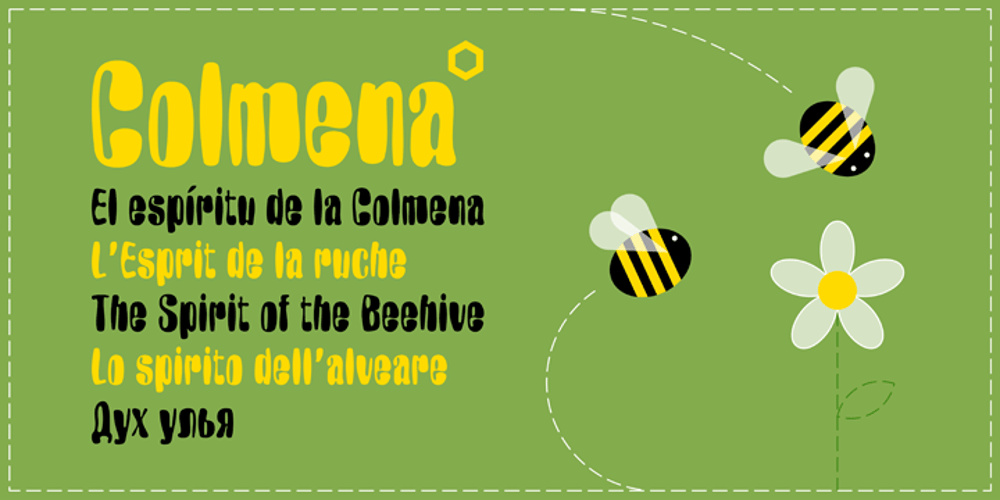
Colmena
Colmena font
Colmena Font Family was designed by Alexey Arhipov and published by ParaType. Colmena contains 1 styles and family package options. Colmena (means Beehive in Spanish) features soft viscous shapes and high contrast that resemble bees and honey. The font was entered into TypeArt Contest in 2005 under the name “FD_Harvey”. Suitable for display purposes especially in books for children.